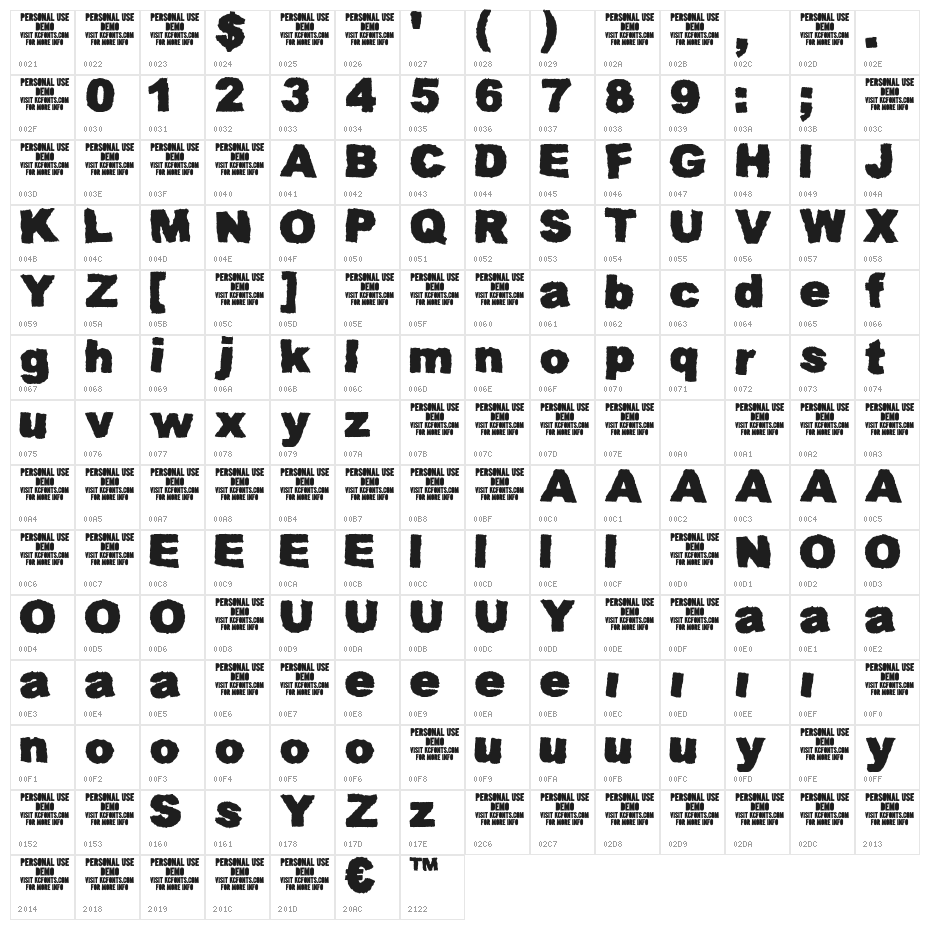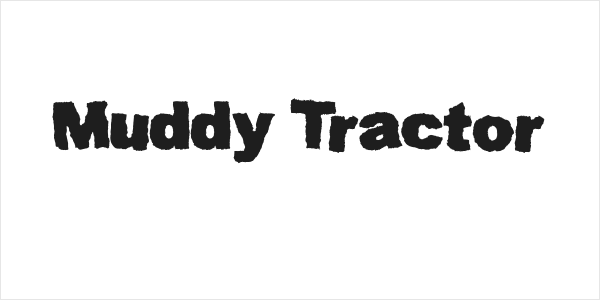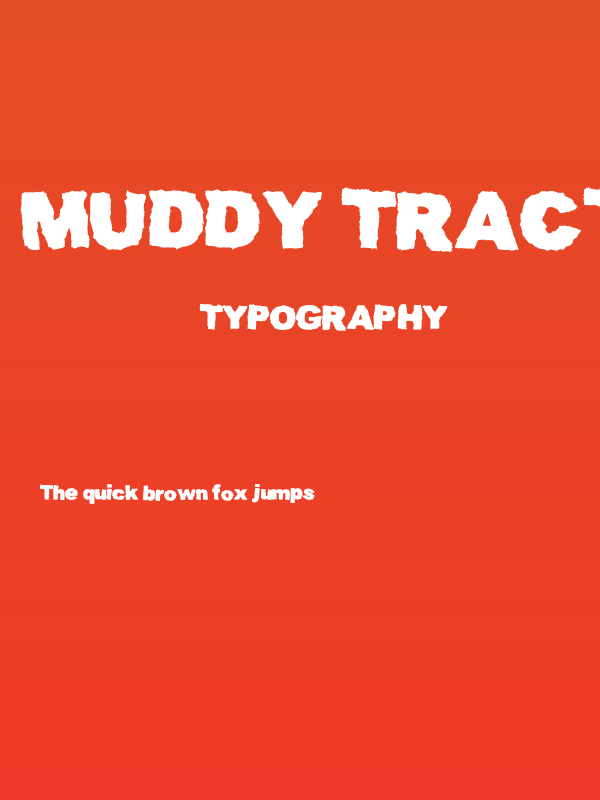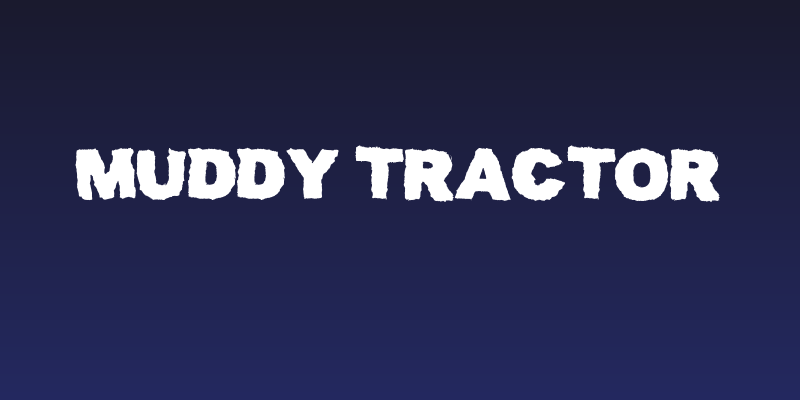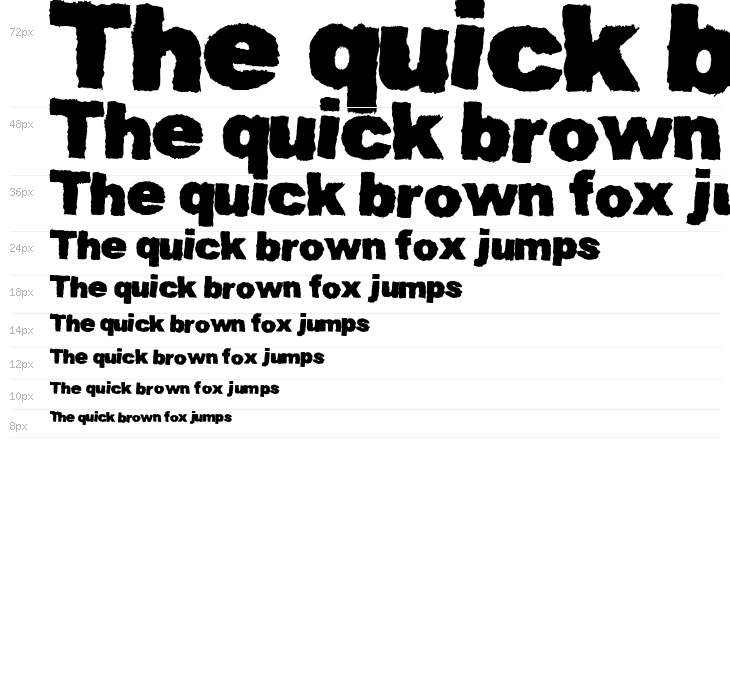
Muddy Tractor Font
Muddy Tractor Description
This font features a rugged, textured appearance reminiscent of mud splatters or rough terrain, giving it a distinctly bold and organic feel. The characters are thick and uneven, with a hand-crafted look that adds a sense of authenticity and rawness. Each letter and number is uniquely shaped, contributing to an overall impression of movement and dynamism. The font's style is both playful and robust, making it suitable for designs that require a touch of nature or a gritty aesthetic. Its boldness ensures high visibility, while the irregular edges provide a casual, informal vibe.
| Proposed Projects | Ideal for outdoor-themed posters, adventure branding, rustic product packaging, and creative event invitations. |